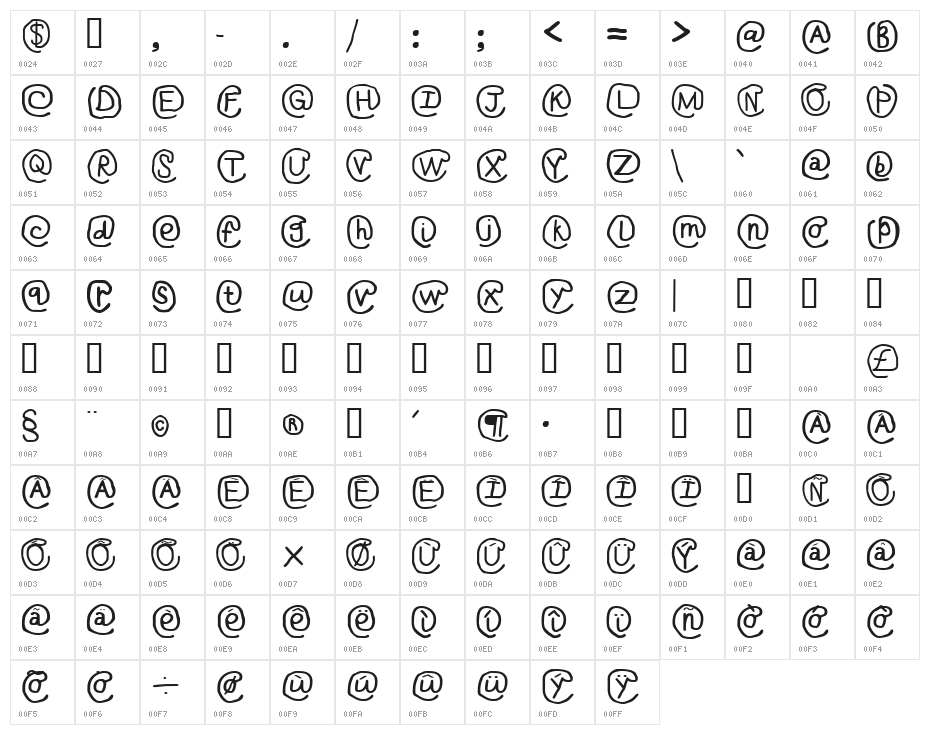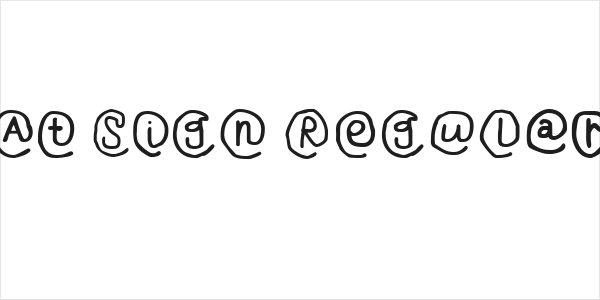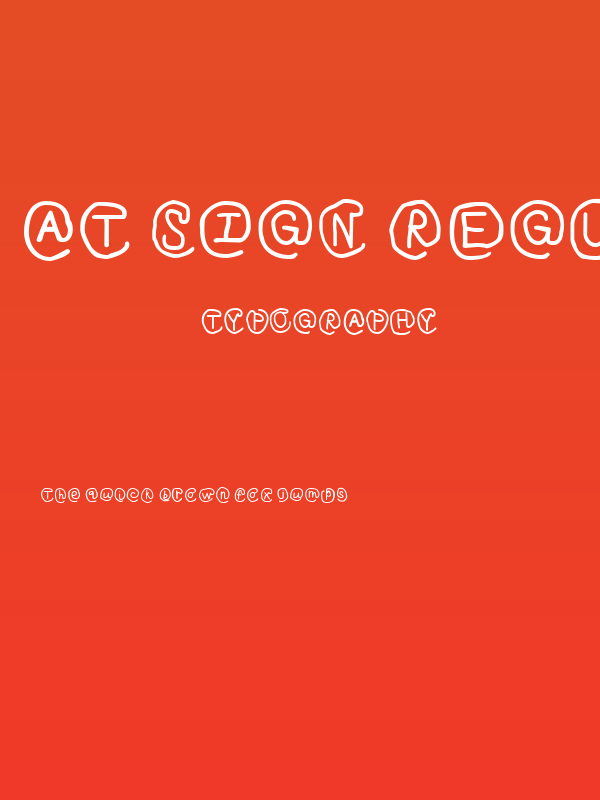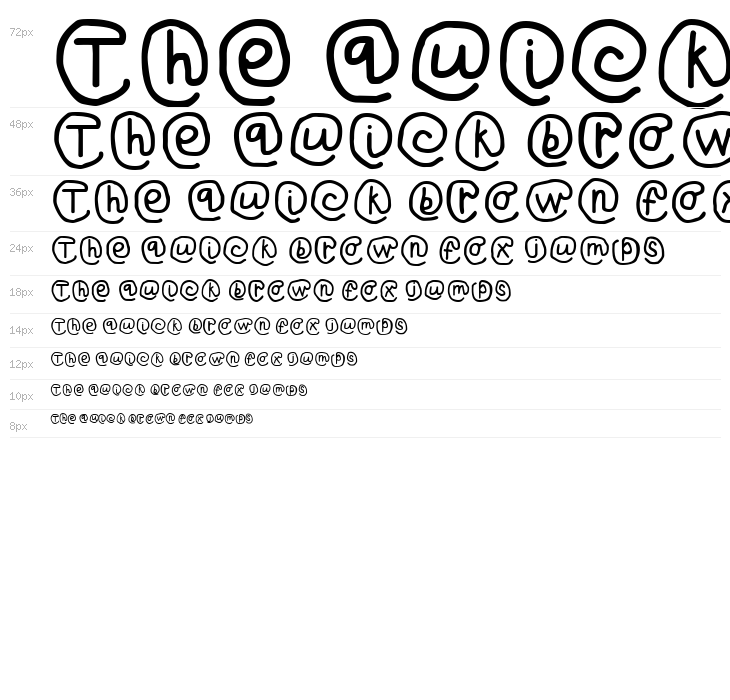
At Sign Regular Font
At Sign Regular Description
This playful and quirky font features characters enclosed in irregular, hand-drawn circles, giving it a casual and whimsical appearance. The letters are bold and rounded, with a consistent thickness that adds to the font's approachable and friendly style. The uppercase and lowercase letters maintain a uniformity in their circular enclosures, while the numbers and special characters follow the same design principle, ensuring a cohesive look. The font's unique style makes it stand out, perfect for projects that require a touch of fun and creativity.
| Overall Style | Whimsical |
| Proposed Projects | Great for children's books, playful branding, greeting cards, and casual posters. |